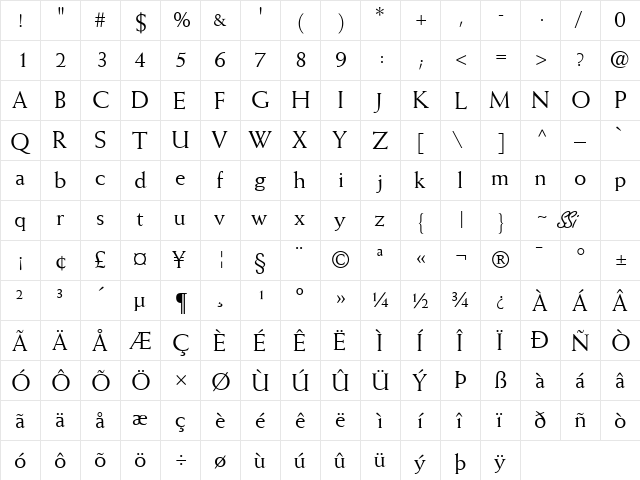
Missive SSi Regular Font Preview
Missive SSi Regular
Missive SSi Regular Font Details
Design Context for Missive SSi Typeface
Missive SSi is a composed and adaptable typeface that performs quietly and consistently across a wide range of design contexts.